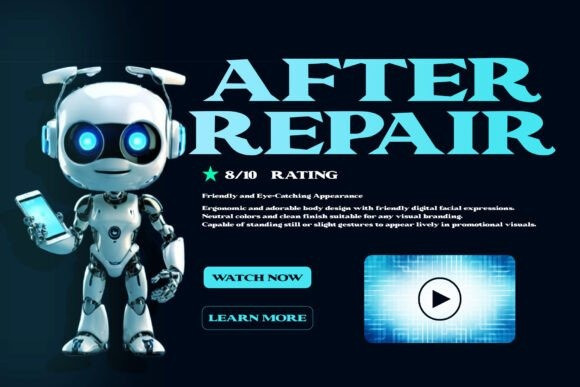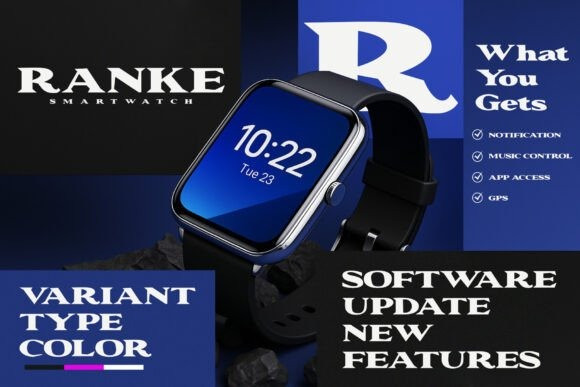
Blatz Font
Blatz Font is a technology-forward serif font that represents the spirit of innovation and advancement. With its sharp, structured forms and elegant serif detailing, Blatz delivers a sophisticated, futuristic look that elevates any modern branding project.
Ideal for Tech-Driven Brands
From logo design and app interfaces to digital branding and more, Blatz offers a distinctive, professional aesthetic. Its confident letterforms and refined geometry make it the perfect match for companies in the tech, software, and digital innovation industries.
Where Vision Meets Precision
Blatz is designed to bridge functionality with forward-thinking style. Whether used in web design, UI, or packaging, it lends a sleek, cutting-edge feel that’s both versatile and memorable—an essential tool for forward-looking creatives.